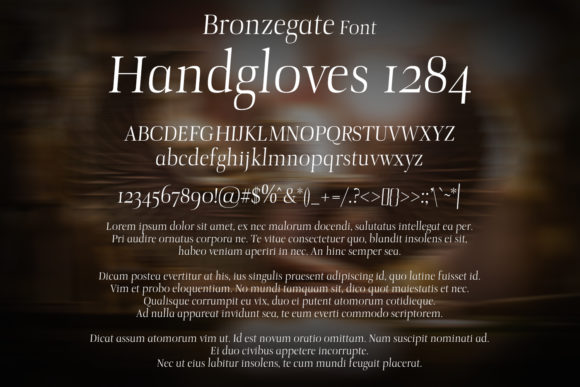
The Designer’s Dilemma: How Bronzegate Font Became My Go-To
I still remember the frustration of working on a project, hours spent on perfecting every detail, only to be held back by one thing: the font. It was a client request for a sophisticated, yet subtle look that I just couldn’t nail. I scoured the internet, tried font after font, but nothing seemed to fit. That was until I stumbled upon Bronzegate Font. ✨
First Impressions: A Love Affair with Bronzegate
As soon as I laid eyes on Bronzegate, I knew I had found something special. This minimal and neat serif font immediately caught my attention with its clean lines and classic feel. It’s versatile, elegant, and effortlessly sophisticated. I knew right then and there that it was going to become a staple in my design toolkit.
What I Love About Bronzegate:
• ✅ Versatility: Bronzegate can easily be matched to an incredibly large set of projects. Whether you’re working on a branding project, a website, or a print design, this font fits right in.
• ✨ Elegant and Sophisticated: The clean lines and subtle serifs give Bronzegate an air of elegance that’s hard to find in other fonts.
• 🔍 Excellent for Readability: The x-height and letter spacing are well-balanced, making it easy to read even at smaller sizes.
While Bronzegate is an excellent font, there are a few things to keep in mind. ⚠️ It may not be the best choice for very large headings or titles due to its subtle nature. Also, some of the more decorative features might not display correctly in all software or platforms, so it’s worth testing before finalizing your design. 🤔
The Story Behind Bronzegate: Designer Inspiration
While the exact origins of Bronzegate might not be well-documented, it’s easy to imagine a designer with a passion for classic typography and modern minimalism creating such a font. Perhaps they were inspired by the elegance of bronze sculptures and sought to capture that timeless beauty in a typeface. 🌟
Q: Is Bronzegate suitable for body text?
A: Absolutely! Bronzegate’s clear and readable design makes it an excellent choice for body text in both print and digital formats.
Q: Does Bronzegate support OpenType features?
A: Yes, Bronzegate supports OpenType features, allowing for advanced typographic styling. Check the specific features available through your design software.
Q: Is Bronzegate available in different weights?
A: While the details can vary, many versions of Bronzegate come in multiple weights, offering flexibility for different design needs.
Bronzegate Font has quickly become a favorite in my design toolkit, and I’m confident it can do the same for you. Its blend of classic elegance and modern simplicity makes it incredibly versatile. Whether you’re a designer, crafter, or hobbyist, Bronzegate can elevate your projects and help them stand out. Give it a try and see the difference for yourself! ✨